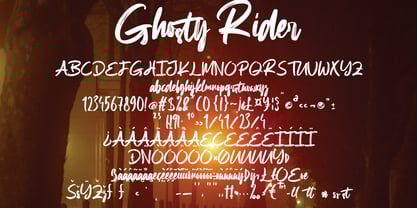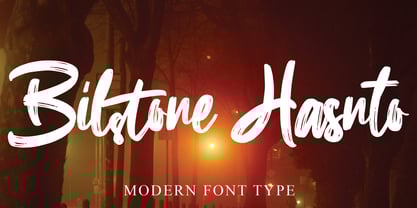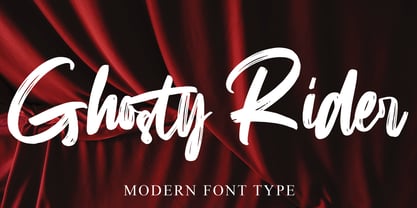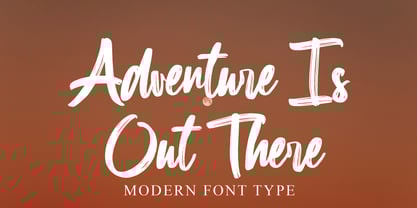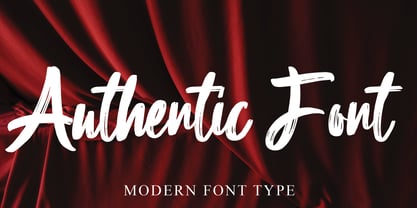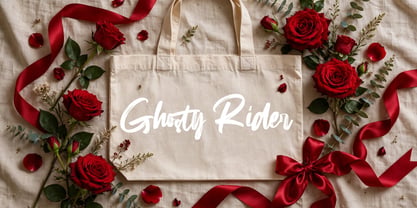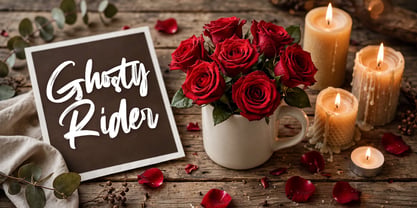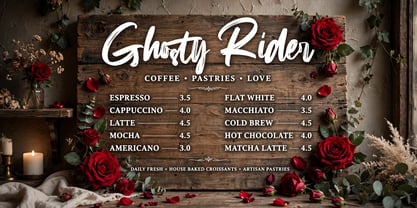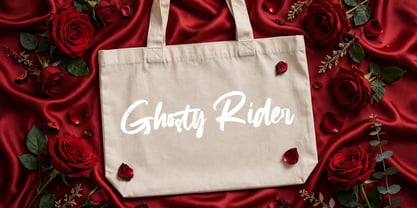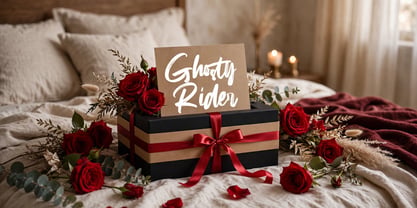
Ghosty Rider
by Ayska
The Ghosty Rider Font Family was designed by Dhoni Trihatmoko and published by Ayska. Ghosty Rider contains 1 styles. More about this family
Immerse yourself in the enchanting appeal of Ghosty Rider, a font that effortlessly marries the sleek elegance of contemporary design with organic, handwritten charm. This diligently crafted typeface radiates refinement and personal expression, making it an engaging companion for your digital art space. Ghosty Rider makes it easy for you to captivate your blog readers, infuse personality into your digital planner designs, breathe life into your invitations, or nestle heartfelt thoughts into homemade cards. It beautifully straddles the line between a nostalgic, vintage feel for your photo albums and a refreshing taste of novelty for your bespoke decor. Ghosty Rider offers the power to transform your typical digital visuals into spectacular, aesthetically pleasing instances of creativity. With its roots deeply embedded in Ghosty Rider, it allows your inventive spirit to ebb and flow, resonating with impactful impressions. Explore the artistic genius of Ghosty Rider and see how it delicately reshapes your aspirations into tangible works of art.
Designers: Dhoni Trihatmoko
Foundry: Ayska